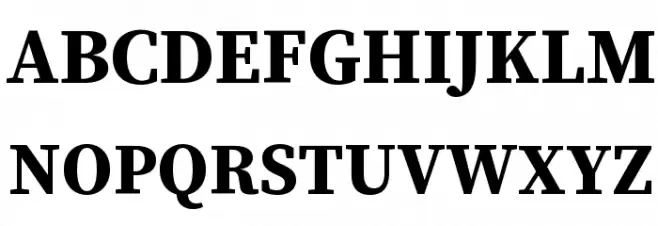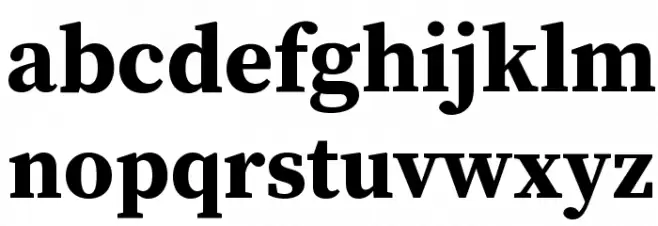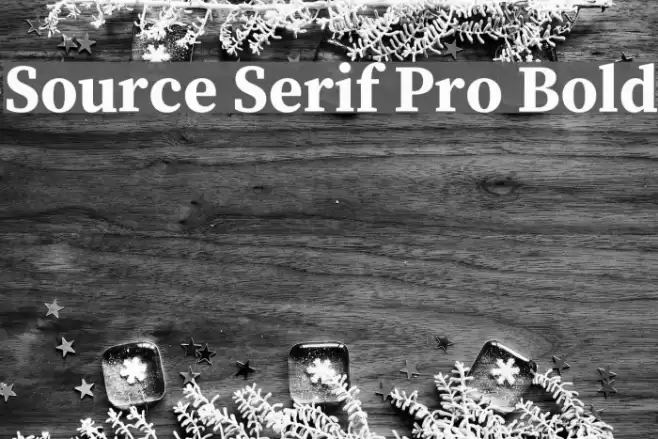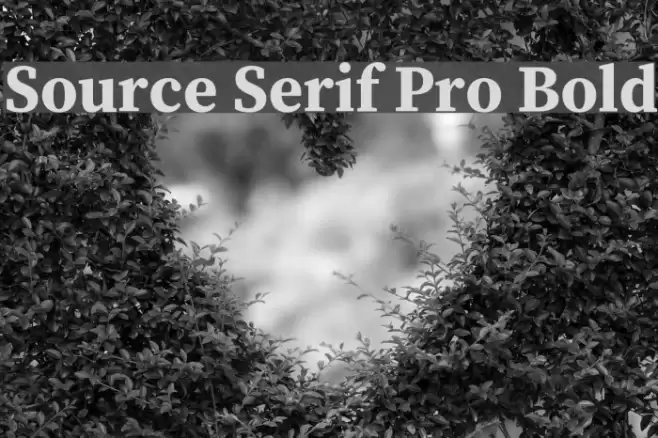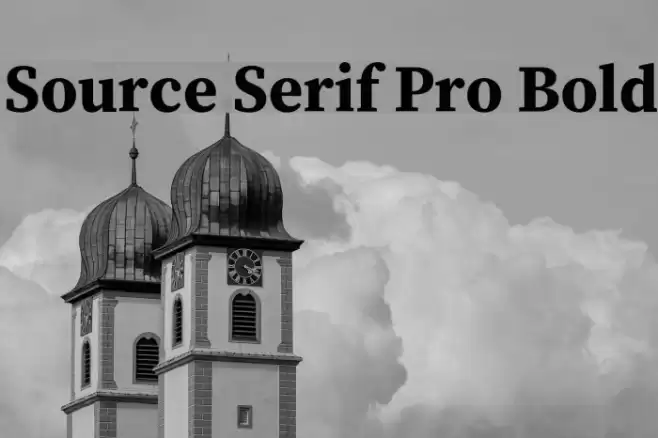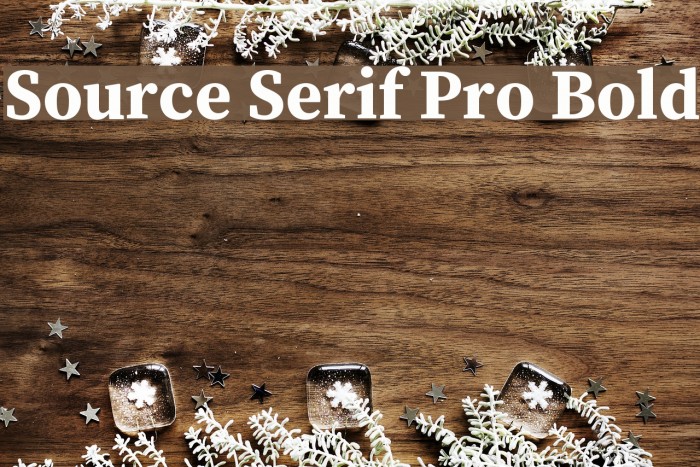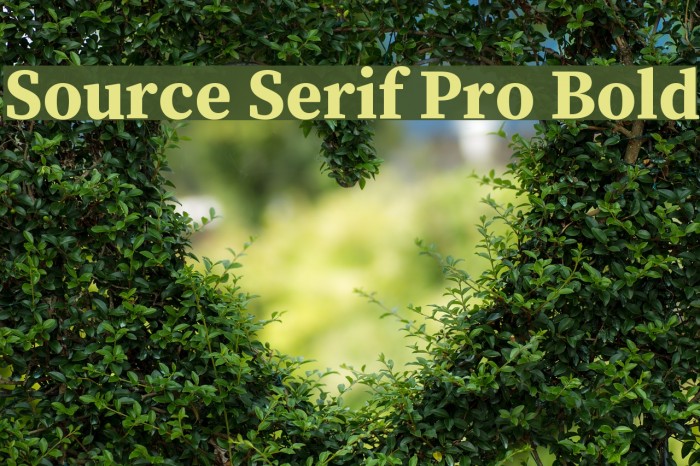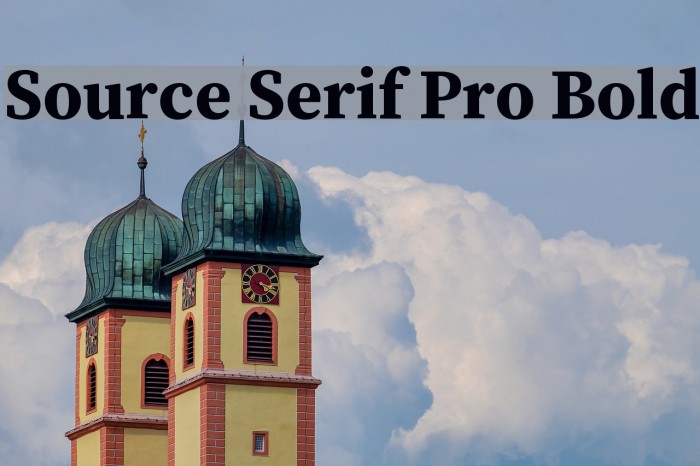
Source Serif Pro Bold
This font is a bold serif typeface that exudes a classic and authoritative presence. The characters are well-defined with strong, thick strokes that provide a sense of stability and confidence. The serifs are pronounced, adding a touch of elegance and tradition to the overall appearance. The uppercase letters are robust and commanding, while the lowercase letters maintain a harmonious balance with slightly rounded edges. The numerals are clear and bold, ensuring readability. Special characters are crafted with precision, maintaining the font's cohesive style. This typeface is ideal for projects that require a formal and impactful look.
A bold serif typeface with strong, elegant strokes and pronounced serifs.
- Proposed Projects: Ideal for book covers, formal invitations, branding, and editorial design.
- Category: Serif
- Contrast: High
- Overall Style: Classic
- Use Case: Headlines, Logos, Editorial design